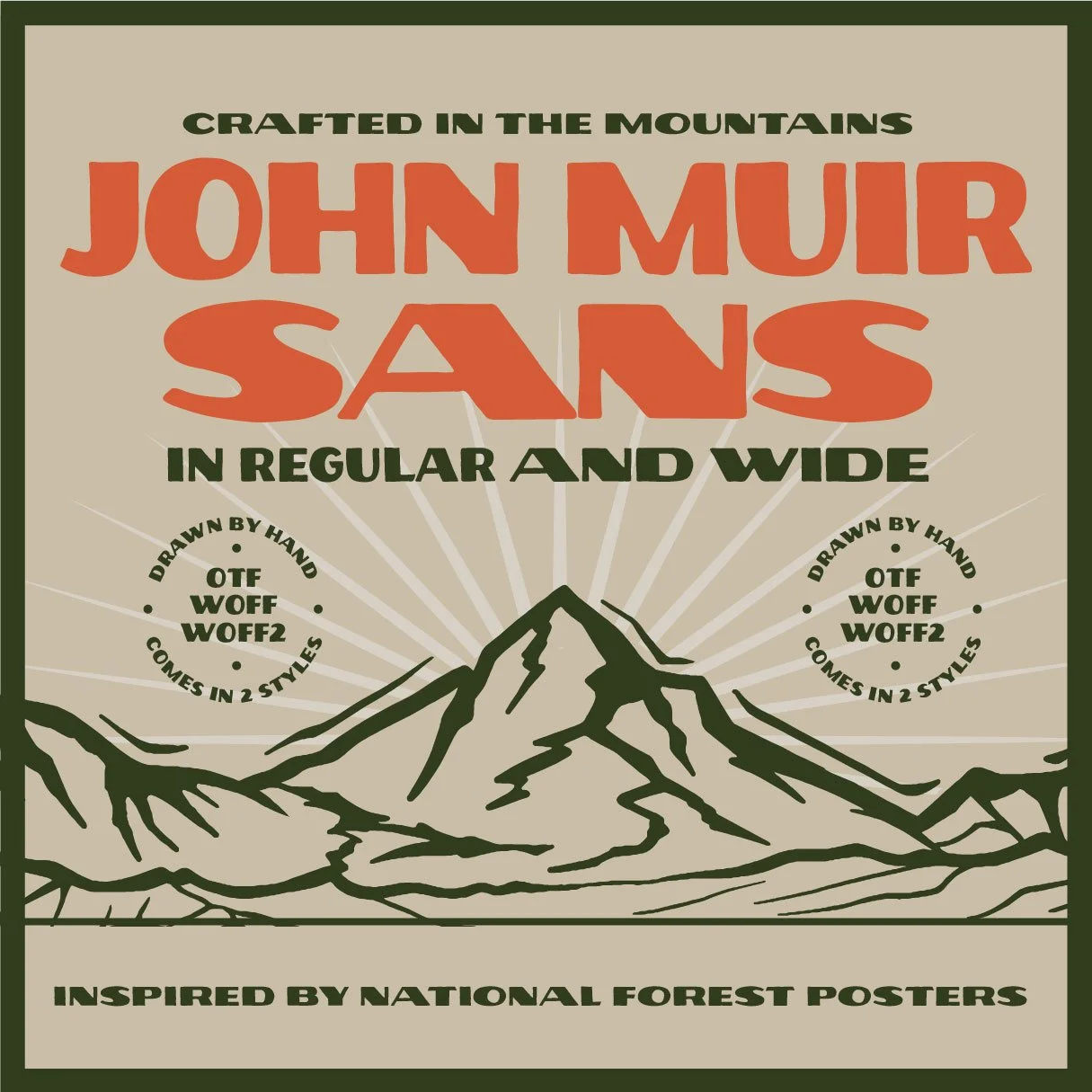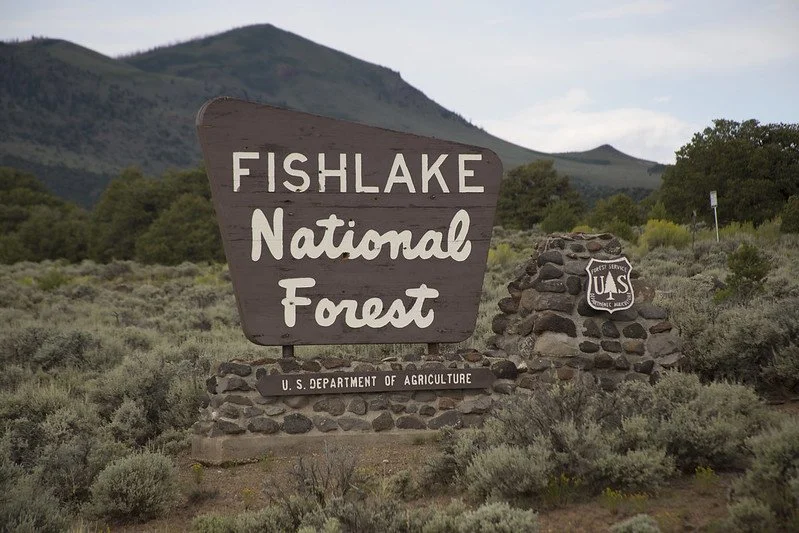
The Ultimate National Park Font Bundle
A collection of hand drawn adventure fonts, inspired by National Park posters and signage.
Background on the National Park Font Bundle
When it comes to graphic design and branding in the outdoor industry, few designs are as timeless WPA National Park posters.
Further complementing the beautiful National Park posters are the lettering fonts found on trail head and mountain town signage and the iconic National Forest Service logo.
The lettering created for each of these carries a sense of adventure, history, and rugged beauty — qualities that perfectly reflect the spirit of the outdoors.
Knowing that the majority of the typography for the aforementioned designs was actually hand drawn lettering (aside from the sans serif type that is routed with a CNC machine on trail head signage) Vicarel Studios was inspired to craft our own hand-drawn font variations of this iconic lettering.
It is our hope to make these beautiful lettering styles more accessible to graphic designers around the world through the creation of these fonts.
Why We Created The National Park Font Bundle
We designed the National Park Font Bundle with a deep appreciation for the aesthetic that defined the aesthetic of outdoor signage and design. Custom hand lettering is a tedious process that can take HOURS to draw just a few letters.
Creating The National Park Font Bundle enabled us to invest time up front, meticulously crafting every character by hand, and then turn it into a simple, functioning font for graphic designers and hobbyists alike.
With these 5 fonts, we’ve shortcut the hand lettering process so that you can achieve the aesthetic of hand crafted lettering with the simple stroke of a key.
Each font in this bundle embodies the spirit of adventure and the great outdoors, with a unique hand-drawn quality that makes them each incredibly unique while simultaneously all working together seamlessly.
From signage found in mountain towns to worn down trailhead signage in the National Parks, these fonts are great for logo design, branding projects, and poster designs.
The National Park poster font and signage inspiration
These adventure fonts are inspired by a number of different things. Namely: National Park poster fonts, the National Forest Service logo font, trailhead signage fonts found in the National Forest, and mountain town signage fonts.
We wanted to create an adventure font bundle that was clearly connected to the hand drawn fonts found in the National Park system. Because of this, when using these fonts you can immediately connect your work to the great outdoors.
Trailhead signage fonts found in the National Forest inspired VS Trailhead.
The National Forest script logo font inspired VS Outdoor Script.
The fonts on signage found in mountain towns inspired VS Trailbum.
The famous National Park poster fonts inspired VS John Muir Sans.
The National Park poster fonts also VS John Muir Serif.
What’s Inside the National Park Font Bundle?
This font bundle includes 5 fonts with 10 total weights and styles.
The fonts included in the bundle are:
VS Outdoor Script: a hand drawn script font inspired by the National Forest Service logo.
A hand-drawn script font inspired by the beautiful lettering created for the National Forest Service logo. This hand drawn script has a retro feel that is applicable for any outdoor or adventure-inspired designs. This National Forest Service script font will help your designs feel like they were plucked straight out of the National Parks themselves.
VS Trailbum: a playful outdoor font.
A bold, playful display font inspired by signage found in mountain towns. Trailbum is an outdoor font made for branding, apparel and merch design, and also digital and website design. VS Trailbum has just the right balance of contemporary playfulness and rustic charm to function as a dynamic font to add to your next project.
VS Trailhead: a monoline National Park signage font.
A monoline font that evokes the strength and durability of trail signage found in the National Forests all around the US. This slightly humanist, monolinear sans comes in two styles: clean and rough. These two styles are inspired by the fonts found on fresh new trail head signage as well as the seemingly rustic fonts on worn trail head signage.
John Muir Serif: a slab serif version of the National Park poster fonts.
John Muir Serif is a slightly adjusted version of John Muir Sans. While this typeface is inherently inspired by the National Park poster fonts, it functions more so as an aesthetic evolution of John Muir Sans, and helps round out this font pack with an outdoor slab serif offering.
Because of this, this bundle of adventure fonts can easily be mixed and matched in a variety of ways.
The National Park fonts are perfect for designers
The National Park poster fonts have always been iconic. Having grown up spending so much time outdoors, these fonts have been emblazoned in my memory since I was young, and we’re excited to offer our take on these classics.